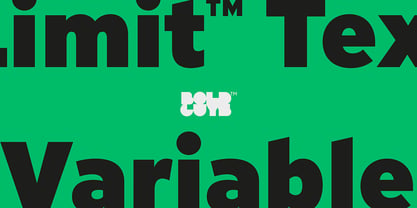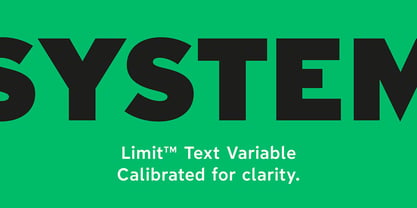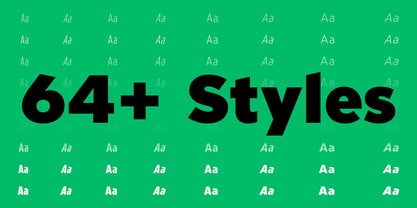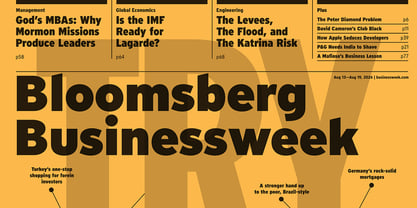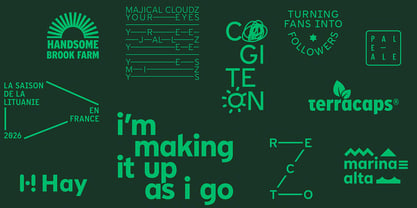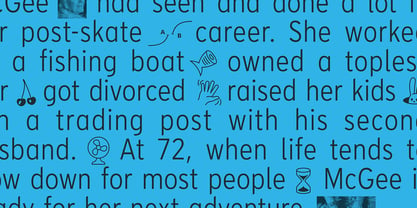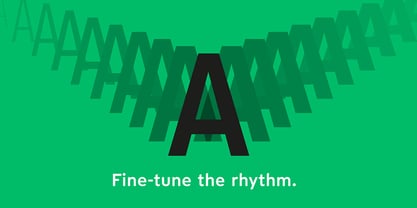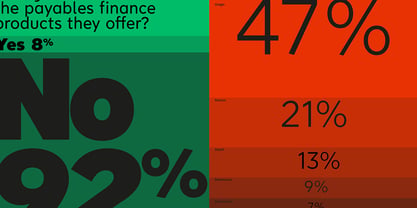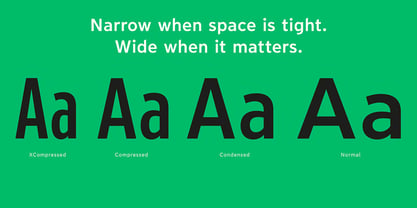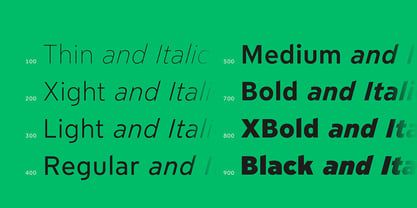
Limit Text Variable Concept
by Bold Guys™
The Limit Text Variable Concept Font Family was designed by Jörg Hemker and published by Bold Guys™. Limit Text Variable Concept contains 2 styles and family package options. More about this family
Limit™ Text Variable refines the core of the Limit™ system into a continuously adjustable reading tool. Its balanced shapes and generous spacing remain intact, while weight and proportion can be tuned with precision — shaping hierarchy, emphasis, and tonal contrast without disrupting rhythm. Designed for body copy, interfaces, and information systems, it delivers calm clarity across changing contexts. Readable, reliable, and precisely calibrated for modern typographic environments.